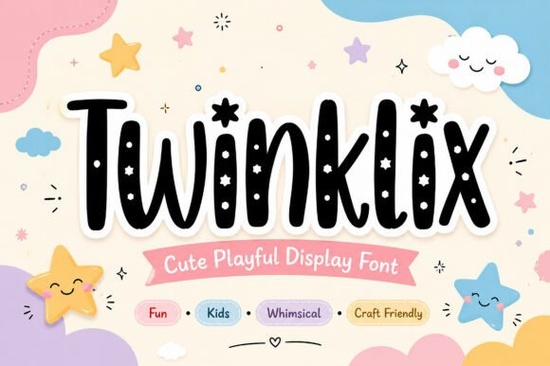
Finding the right typeface for playful projects can be tricky when you want something that feels genuine rather than overly manufactured. The Twinklix Font offers a solution for designers seeking a hand-drawn aesthetic with a whimsical twist. It combines rounded shapes with unique star details, making it a standout choice for anyone working on children's products or creative hobbies. Whether you are making party invitations or designing nursery decor, this typeface brings a specific kind of joy that standard sans-serif options often lack.
Many crafters and small business owners struggle to find fonts that look good on both screen and physical materials. This option handles well across different mediums because of its sturdy letterforms. The characters are thick enough to remain legible when resized, which is crucial for items like stickers or toy packaging. You do not need to worry about thin lines disappearing when you cut vinyl or print on textured paper. The built-in charm means you often need fewer additional graphics to make your design pop.
What kind of projects work best with this typeface?
This font shines in environments where warmth and imagination are priorities. It is naturally suited for storybooks where the text needs to feel inviting to young readers. Beyond books, it works wonderfully for educational materials like flashcards or classroom decorations. The playful personality helps keep children engaged without being distracting. If you are creating content for social media, especially within the parenting or teaching niches, these letterforms can make your headlines more approachable.
For those who enjoy sweet and vibrant design themes, you might also explore collections similar to this cheerful candy style to see how different playful fonts can alter the mood of a project. While Twinklix focuses on stars and rounded edges, other options might offer different flavors of fun. Comparing styles helps you decide which one fits your specific brand voice. For example, a bakery selling cupcakes might prefer something sweeter, while a toy store might want something bolder.
Is it easy to use for small business branding?
Branding requires consistency, and a display font like this can become a key part of your visual identity. It works well for logos related to children's services, such as daycare centers or birthday planning businesses. The friendly shapes suggest trust and kindness, which are essential qualities for parents looking for services. When used on packaging, it creates an unboxing experience that feels personal and crafted with care.
If you need a font that leaves a lasting impression for broader branding efforts, looking at options like the moment font display fonts collection could provide additional inspiration for memorable titles. However, for niche markets focused on youth, the specific details in Twinklix often resonate more deeply. It is important to test your logo in black and white as well as color to ensure the shapes hold up without relying on the star details alone.
How does it perform on cutting machines?
Cricut and Silhouette users know that not all fonts cut cleanly. Complex scripts can be a nightmare to weed, but this display font is generally forgiving. The rounded shapes mean there are fewer sharp corners that might tear during the cutting process. This makes it a reliable choice for heat transfer vinyl on t-shirts or adhesive vinyl for mugs. You can spend less time fixing broken letters and more time assembling your final product.
Sometimes you need a contrast font to pair with your main display typeface. If you are building a layered design, consider pairing it with something structured like the western block font display fonts for a strong foundation. The contrast between a playful header and a solid subheader can improve readability significantly. This is particularly useful for event posters where information hierarchy matters. Always check the kerning settings in your design software to ensure the stars do not clash with neighboring letters.
Can it be paired with other handwritten styles?
Mixing fonts is an art form. While Twinklix is a display font, it can work alongside simpler scripts if done carefully. The key is to ensure one font takes the lead while the other supports it. For example, use this for the main title and a simpler script for secondary details like dates or names. This prevents the design from looking too cluttered or childish.
If you are looking for a companion script that feels personal, you might review styles found in the Josie font display fonts category. Pairing a whimsical display font with a natural handwriting style can create a balanced look for invitations. Just remember to keep the line heights consistent so the two typefaces feel like they belong on the same page. Testing your combinations in print before finalizing a large order is always a smart move.
Where does it fit among versatile display options?
Not every project needs stars and rounded edges, but having a versatile tool in your arsenal is valuable. This font sits comfortably in the category of decorative display types that still maintain readability. It is not so abstract that people cannot read it, which is a common issue with highly stylized fonts. This balance makes it useful for a wider range of commercial projects.
- Test Cuts: Run a small vinyl cut test to check weeding ease before committing to a large batch.
- Save Variations: Keep versions with and without the star details if the font file allows layer access.